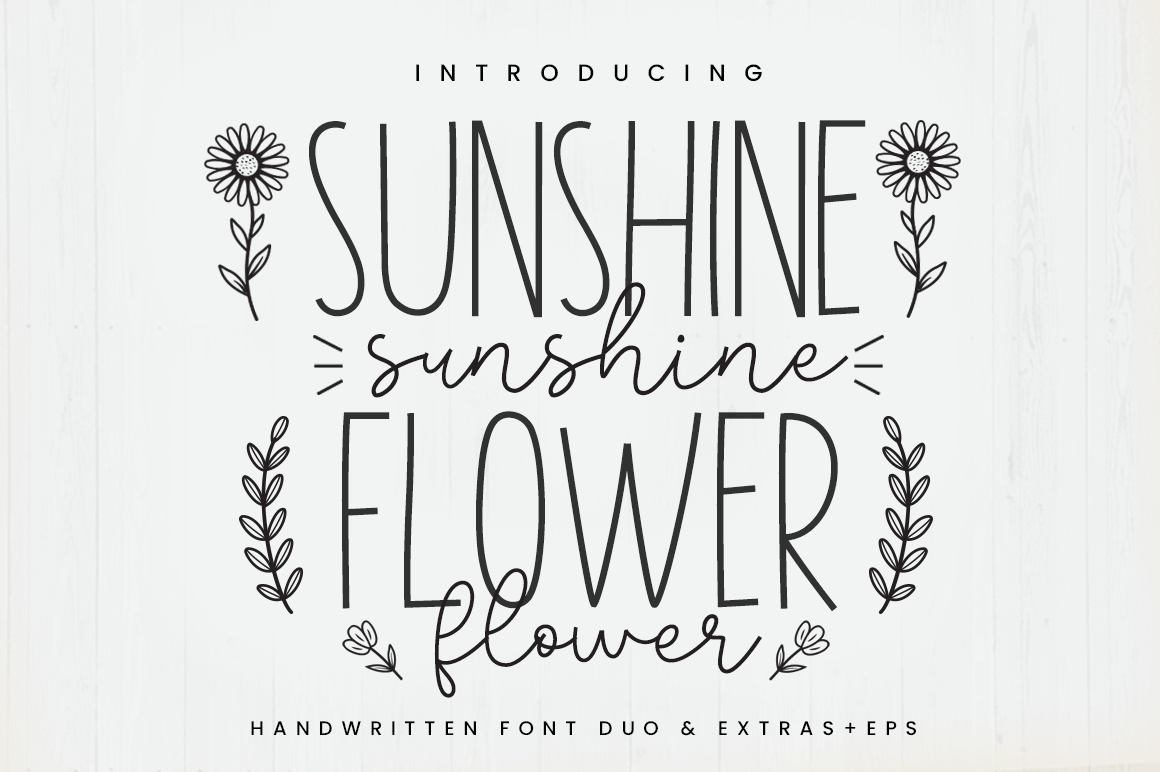
Sunshine Flower Font Download For Free
Sunshine Flower is a tall sans serif and lovely handwritten duo. Together or separate, these fonts are ideal for adding a touch of chic and cheer to your crafts. Sunshine Flower consists of two fonts designed to complement each other perfectly!
In addition, you’ll get an extra doodles font and EPS vector sunshine and rainbow, which are more complete for crafts such as stickers, vinyl, Cricut, and many others.